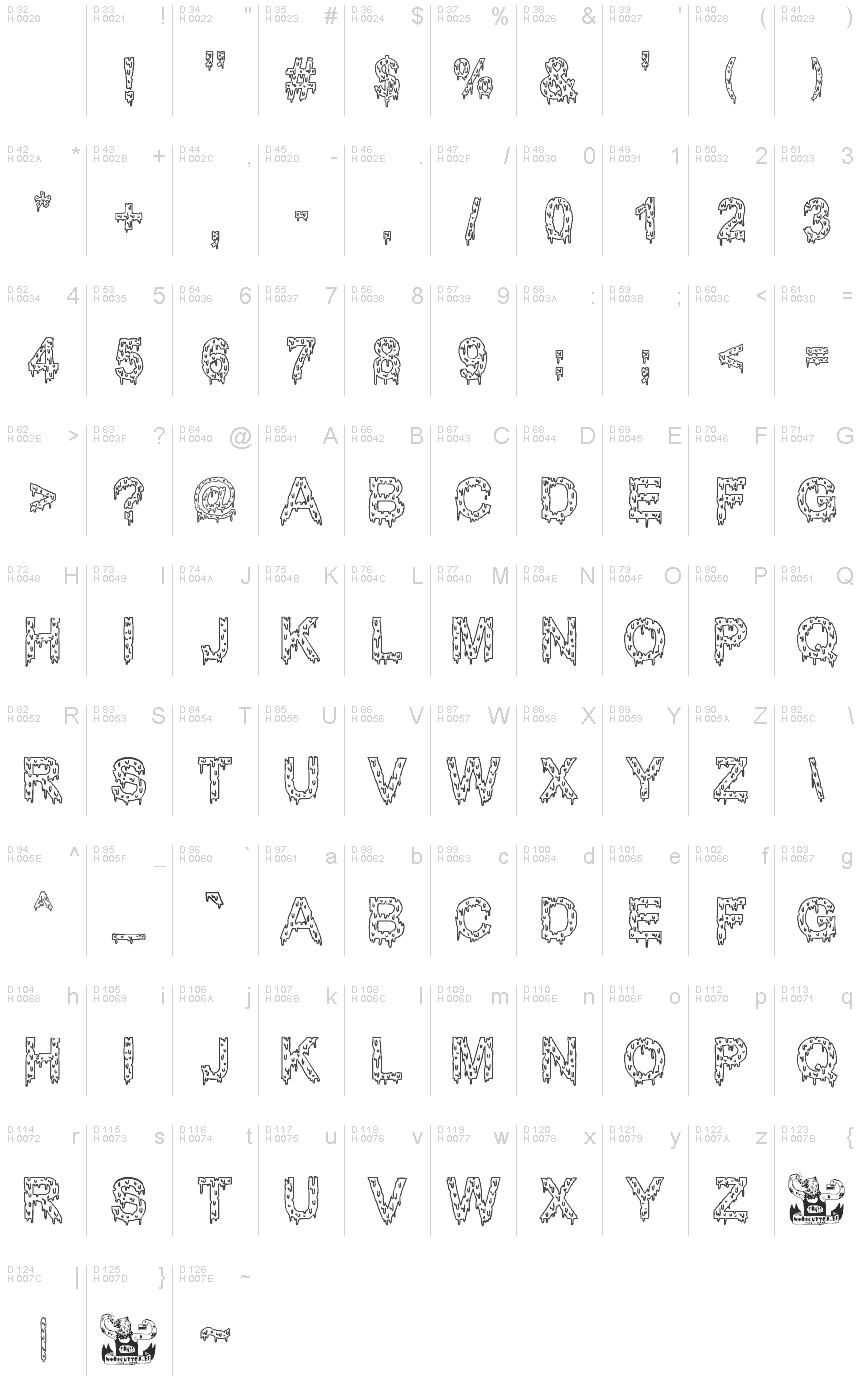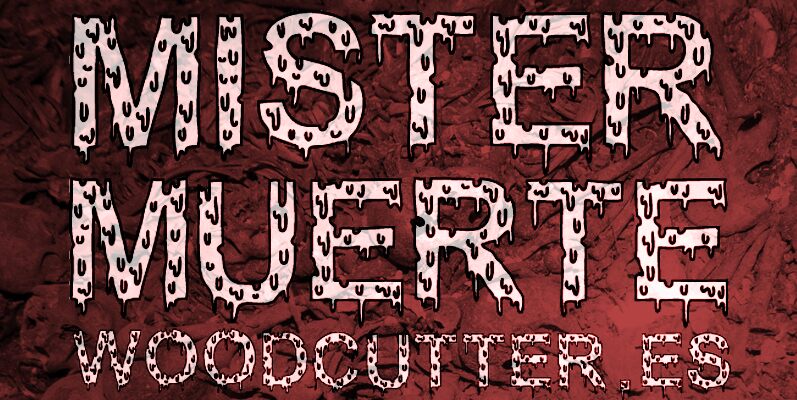
Mister Muerte
Mister Muerte, a display font created by Woodcutter Manero, exudes a captivating sense of the macabre. Its intricate, spindly letterforms evoke a haunting, otherworldly atmosphere, perfectly suited for horror-themed designs, heavy metal album covers, and any project that demands a striking, unsettling aesthetic.
The font's sharp, jagged edges and the irregular spacing between characters lend it a disturbingly unique charm, making it a versatile choice for a wide range of applications, from movie posters to dark fantasy book covers.
Mister Muerte's bold, uncompromising style sets it apart, commanding attention and leaving a lasting impression on viewers.